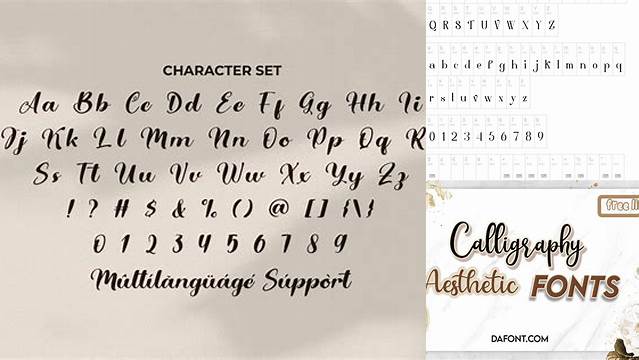
Aesthetic Calligraphy Fonts: Your Dafont Guide
Hey guys! Ever scrolled through Dafont, totally overwhelmed by the sheer number of calligraphy fonts? Yeah, me too! Finding those aesthetic gems can feel like searching for a needle in a haystack. But don't worry, this guide is here to help you navigate the wonderful world of aesthetic calligraphy fonts on Dafont. We'll break down everything from what makes a font "aesthetic" to specific fonts you should check out and how to use them in your projects. So, grab your digital pens (or your actual pens, if you're feeling old-school!), and let's dive in!
1. Understanding Aesthetic in Calligraphy
What exactly makes a calligraphy font aesthetic? It's subjective, of course, but there are some key elements that contribute to that pleasing-to-the-eye quality. Think about balance, flow, and visual harmony. Aesthetic fonts often feature elegant curves, delicate strokes, and a certain je ne sais quoi that sets them apart. Different aesthetics exist too! You might be drawn to a minimalist, modern calligraphy or a more ornate, vintage-inspired style. Understanding your own preferences is the first step. The right aesthetic in calligraphy goes beyond just pretty lines; it's about conveying a feeling, a mood, and a specific message through visual form. Consider the context in which the font will be used. A wedding invitation calls for a different aesthetic than a logo for a tech startup. Exploring various examples and identifying the elements that resonate with you will sharpen your understanding of aesthetic calligraphy and guide your font choices. Ultimately, aesthetic calligraphy aims to elevate your design, adding a touch of sophistication and artistic flair that resonates with your audience.
2. Navigating Dafont for Calligraphy Fonts
Dafont is a treasure trove, but it can be tricky to navigate. The search function is your friend! Use keywords like "calligraphy," "script," "handwritten," and then add descriptors like "elegant," "modern," "vintage," or "decorative" to narrow down your results. Don't just stick to the first page of results; dig deeper! Many hidden gems are lurking further down. Also, pay attention to the preview text. Dafont lets you type in your own text, so use this to see how the font looks with the words you actually plan to use. This is super important! A font might look great with the default "The quick brown fox…" but terrible with your brand name. The search function also allows you to filter by license type (e.g., free for personal use, free for commercial use). Always double-check the license before using a font in a project, especially if it's for commercial purposes. Nobody wants a copyright infringement lawsuit! Using Dafont effectively requires patience and a keen eye. With its vast library of fonts, the key is to refine your search queries and leverage the preview options to discover those aesthetic calligraphy fonts that truly speak to your design vision. Explore, experiment, and don't be afraid to venture beyond the popular choices – that's where the real discoveries await.
3. Popular Aesthetic Calligraphy Styles on Dafont
Let's talk styles! Modern calligraphy is clean, minimalist, and often features subtle variations in line weight. Vintage calligraphy is more ornate, with swashes, flourishes, and a retro feel. Elegant calligraphy focuses on graceful curves and sophisticated letterforms. Boho calligraphy is free-spirited, with a natural, organic look. Understanding these styles will help you refine your searches and find fonts that match your aesthetic. Think about the overall vibe you're going for. Is it sophisticated and timeless? Or playful and whimsical? Your chosen style should complement the message you're trying to convey. Within these broad categories, there's a ton of variation. Some fonts lean towards a more formal, traditional style, while others are more casual and contemporary. The beauty of Dafont is that it offers a diverse range of options to suit every taste. By familiarizing yourself with the popular styles, you'll be better equipped to identify fonts that align with your specific aesthetic and create designs that resonate with your intended audience. Take your time to explore and experiment with different styles until you find the perfect fit for your project.
4. Top Dafont Calligraphy Fonts for Wedding Invitations
Planning a wedding? Aesthetic calligraphy fonts are a must for invitations! Look for elegant and romantic fonts that evoke a sense of celebration and timelessness. Some popular choices include variations of Aphrodite Pro, Beloved, and Isabella Script. These fonts often feature delicate swashes and flourishes that add a touch of sophistication to your wedding stationery. Consider the overall theme of your wedding when selecting a font. A formal, traditional wedding might call for a more classic calligraphy style, while a rustic, bohemian wedding could benefit from a more relaxed and organic font. Pay attention to readability as well. While aesthetics are important, your guests need to be able to easily read the details of your invitation. The font should be legible in both print and digital formats. Don't be afraid to mix and match fonts. You can use a calligraphy font for the names of the bride and groom and a simpler sans-serif font for the body text. This can create a visually appealing contrast while maintaining readability. Ultimately, the best calligraphy font for your wedding invitations is one that reflects your personal style and the overall aesthetic of your special day. Take the time to explore different options and find a font that perfectly captures the romance and elegance of your wedding.
5. Best Calligraphy Fonts for Logos on Dafont
Using calligraphy in a logo can give your brand a unique and sophisticated feel. However, choosing the right font is crucial. You want something that's both aesthetic and legible, and that represents your brand's personality. For a logo, consider fonts like Monsieur La Doulaise or Great Vibes. These are clean, readable, and have a distinct personality. When choosing a calligraphy font for your logo, consider your target audience and the overall message you want to convey. A luxury brand might opt for a more elegant and refined font, while a creative startup might choose a more playful and unconventional option. Readability is paramount. Your logo needs to be easily recognizable, even at small sizes. Avoid fonts with overly intricate or decorative elements that could obscure the brand name. Ensure the font works well in both print and digital formats. Your logo will likely be used on a variety of platforms, so it needs to be versatile and adaptable. Don't be afraid to experiment with different font pairings. You can combine a calligraphy font with a simpler sans-serif font to create a balanced and visually appealing logo. Remember, your logo is the face of your brand. Choosing the right calligraphy font can help you create a memorable and impactful visual identity.
8. Pairing Calligraphy Fonts with Other Fonts
Calligraphy fonts are beautiful, but they often look best when paired with other fonts. A classic pairing is a calligraphy font for headings and a simple sans-serif font for body text. This creates a visual hierarchy and ensures readability. When choosing a pairing font, consider the overall aesthetic you're going for. A modern calligraphy font might pair well with a clean and geometric sans-serif font, while a vintage calligraphy font could complement a more traditional serif font. Avoid pairing two highly decorative fonts together. This can create a cluttered and overwhelming design. Instead, choose one decorative font and one simple font. Pay attention to the weight and spacing of the fonts. The pairing fonts should have a similar weight and spacing to create a harmonious look. Experiment with different font pairings until you find one that you like. There are many online resources that can help you find complementary fonts. Remember, the goal is to create a visually appealing and easy-to-read design. By carefully pairing calligraphy fonts with other fonts, you can elevate your designs and create a professional and polished look.
9. Using Calligraphy Fonts in Adobe Photoshop
Photoshop is a powerful tool for creating stunning designs with aesthetic calligraphy fonts. To use a calligraphy font in Photoshop, simply select the Type tool and choose the font from the font menu. You can adjust the font size, color, and other properties in the Character panel. Experiment with different blending modes to create unique effects. For example, you can use the Overlay blending mode to blend the calligraphy with a background image. Add drop shadows and other layer styles to give the calligraphy depth and dimension. Use the Warp Text tool to distort the calligraphy and create interesting shapes. Photoshop also offers a variety of brushes that can be used to create hand-lettered effects. You can use these brushes to add texture and detail to your calligraphy designs. If you're working with a complex calligraphy font, you may want to convert the text to a shape layer. This will allow you to edit the individual letters and curves. Remember to save your Photoshop file in a high-resolution format to ensure that the calligraphy looks crisp and clear. With Photoshop's powerful tools and features, you can create stunning and aesthetic calligraphy designs that are sure to impress.
10. Utilizing Calligraphy Fonts in Adobe Illustrator
Illustrator is another great tool for working with aesthetic calligraphy fonts. Unlike Photoshop, Illustrator is a vector-based program, which means that your calligraphy designs will be scalable without losing quality. To use a calligraphy font in Illustrator, select the Type tool and choose the font from the Character panel. You can adjust the font size, color, and other properties in the Character panel. Use the Pen tool to create custom swashes and flourishes. This will allow you to add your own personal touch to the calligraphy. Expand the text to create outlines. This will convert the text into editable vector paths. You can then use the Direct Selection tool to edit the individual points and curves. Use the Pathfinder panel to combine and manipulate the shapes. This can be useful for creating complex calligraphy designs. Add gradients and patterns to give the calligraphy depth and dimension. Illustrator's vector-based nature makes it ideal for creating logos and other designs that need to be scalable. With Illustrator's powerful tools and features, you can create stunning and aesthetic calligraphy designs that are perfect for a variety of projects.
11. Calligraphy Fonts for Cricut and Silhouette Machines
If you own a Cricut or Silhouette machine, you can use aesthetic calligraphy fonts to create personalized cards, labels, and other crafts. First, download and install the calligraphy font on your computer. Then, import the font into your Cricut or Silhouette design software. Use the software's text tool to type out your desired text. Adjust the font size and spacing as needed. Weld the letters together to create a continuous shape. This is important for ensuring that the machine cuts the design properly. Cut the design out of vinyl, paper, or other materials. Weed away the excess material. Apply the design to your project using transfer tape. Calligraphy fonts can add a touch of elegance and personalization to your crafts. With your Cricut or Silhouette machine, you can create stunning and unique projects that are sure to impress. Experiment with different fonts and materials to create your own signature style.
12. Creating Digital Calligraphy with a Tablet
For a truly authentic calligraphy experience, consider creating digital calligraphy with a tablet and stylus. This allows you to mimic the feel of traditional calligraphy while taking advantage of the flexibility of digital tools. Invest in a good quality tablet and stylus. Wacom and iPad Pro are popular choices among digital artists. Choose a calligraphy app that suits your needs. Procreate, Adobe Fresco, and Concepts are all great options. Experiment with different brushes and settings. Each app offers a variety of brushes that mimic different calligraphy pens and nibs. Practice your strokes and letterforms. Digital calligraphy requires practice and patience. Use reference materials to improve your technique. Use layers to create complex designs. This allows you to easily edit and adjust different elements of the calligraphy. Add textures and effects to give the calligraphy a unique look. Digital calligraphy offers endless possibilities for creativity and experimentation. With a tablet and stylus, you can create stunning and aesthetic calligraphy designs that are both beautiful and unique.
13. Calligraphy Font Generators: Are They Worth It?
Calligraphy font generators can seem like a quick and easy way to create aesthetic calligraphy, but are they really worth it? The answer is: it depends. Font generators typically offer limited customization options. You may not be able to adjust the letter spacing, kerning, or other important details. The quality of the generated fonts can vary greatly. Some generators produce fonts that look amateurish and lack the finesse of professional fonts. Font generators often use pre-made templates. This can result in designs that look generic and lack originality. However, font generators can be useful for creating quick mockups or prototypes. They can also be a good way to experiment with different styles and ideas. If you're looking for high-quality, professional-looking calligraphy, it's best to use real calligraphy fonts or create your own digital calligraphy. Font generators can be a helpful tool, but they shouldn't be relied upon as a substitute for genuine calligraphy skills and resources. Use them wisely and be aware of their limitations.
14. Monoline vs. Brush Calligraphy Fonts
Monoline calligraphy fonts feature strokes of consistent thickness, creating a clean and modern look. They're ideal for projects where legibility is paramount, such as logos and signage. Brush calligraphy fonts, on the other hand, mimic the look of traditional brush lettering, with varying stroke thicknesses that add depth and character. They're often used for wedding invitations, quotes, and other designs where a more artistic and expressive feel is desired. Consider the overall aesthetic you're going for when choosing between monoline and brush calligraphy fonts. Monoline fonts tend to be more minimalist and understated, while brush fonts are more dynamic and eye-catching. Think about the context in which the font will be used. A monoline font might be a better choice for a website header, while a brush font could be perfect for a social media graphic. Experiment with different fonts and see which ones best suit your project. There are many beautiful monoline and brush calligraphy fonts available on Dafont and other font websites. The key is to find fonts that align with your style and complement your design.
15. Calligraphy Fonts with Swashes and Flourishes
Swashes and flourishes are decorative elements that extend from the letters, adding elegance and sophistication to calligraphy fonts. These embellishments can transform a simple word into a work of art. When using calligraphy fonts with swashes and flourishes, it's important to use them sparingly. Too many swashes and flourishes can make the design look cluttered and overwhelming. Use swashes and flourishes to emphasize key words or phrases. This will draw the viewer's eye to the most important elements of the design. Consider the overall aesthetic of the design. Swashes and flourishes can range from delicate and subtle to bold and dramatic. Choose embellishments that complement the overall style. Experiment with different swash and flourish options. Many calligraphy fonts offer a variety of swashes and flourishes to choose from. Use them creatively to add your own personal touch to the design. Remember, less is often more. A few well-placed swashes and flourishes can be more effective than a design that is overloaded with ornamentation. With careful planning and execution, you can use calligraphy fonts with swashes and flourishes to create stunning and aesthetic designs.
16. Calligraphy Fonts for T-Shirt Designs
Calligraphy fonts can add a unique and stylish touch to t-shirt designs. When choosing a calligraphy font for a t-shirt, consider the overall message and style of the design. A bold and edgy font might be suitable for a rock band t-shirt, while a more delicate and elegant font could be perfect for a bridal party t-shirt. Ensure the font is legible, even when printed on fabric. Avoid fonts with overly thin or intricate details that may not reproduce well. Consider the size of the design. Calligraphy fonts can look great at large sizes, but they may become difficult to read at smaller sizes. Test the design on a sample t-shirt before printing a large batch. This will allow you to identify any issues with the font or design. Use contrasting colors to make the calligraphy stand out. A dark font on a light background or a light font on a dark background will create a visually appealing contrast. Don't be afraid to experiment with different font combinations. You can pair a calligraphy font with a simpler sans-serif font to create a balanced and visually interesting design. With the right calligraphy font, you can create t-shirt designs that are both stylish and memorable.
17. Calligraphy Fonts for Social Media Graphics
Aesthetic calligraphy fonts are a fantastic way to elevate your social media graphics, adding a touch of personality and sophistication to your posts. Choose fonts that align with your brand's aesthetic and target audience. A playful brand might opt for whimsical calligraphy, while a more serious brand could prefer elegant and refined styles. Ensure the font is legible on various screen sizes. Social media is consumed on everything from phones to desktops, so readability is crucial. Use contrasting colors to make the calligraphy stand out against your background images or videos. A well-chosen color palette can enhance the overall visual appeal. Animate the calligraphy to capture attention and create a dynamic effect. Simple animations can add a touch of magic to your posts. Use calligraphy fonts sparingly to highlight key messages or headlines. Overusing calligraphy can clutter the design and diminish its impact. Experiment with different font pairings to create visual interest and balance. Combine calligraphy with sans-serif or serif fonts for a cohesive look. With the right calligraphy fonts and design techniques, you can create social media graphics that are both engaging and aesthetically pleasing. Remember, consistency is key – use a consistent style to reinforce your brand identity.
18. Calligraphy Fonts for Book Covers
Calligraphy fonts can create a captivating and memorable book cover, drawing readers in with their artistic flair. Select a font that reflects the genre and tone of the book. A romantic novel might call for a flowing script, while a historical fiction could benefit from a more traditional style. Ensure the font is legible from a distance. Book covers need to grab attention on shelves and in online stores, so readability is essential. Use the calligraphy font for the title or author's name, and pair it with a simpler font for the subtitle or other text elements. This creates a visual hierarchy. Consider the overall design of the cover. The calligraphy font should complement the imagery and color palette. Experiment with different font sizes and placements to find the most effective composition. Think about the target audience for the book. The font should appeal to the readers you're trying to reach. Research best-selling book covers in your genre for inspiration, but be sure to create a unique design that stands out. A well-chosen calligraphy font can transform a book cover from ordinary to extraordinary, making it more appealing and memorable to potential readers.
19. Calligraphy Fonts and Branding: Dos and Don'ts
Using calligraphy fonts in branding can add a touch of elegance, personality, and memorability, but it's essential to approach it strategically. Do choose a font that aligns with your brand's personality and values. A luxury brand might opt for a sophisticated script, while a creative brand could choose a more playful style. Don't use overly intricate or illegible fonts. Your brand name needs to be easily recognizable. Do use calligraphy sparingly, focusing on key elements like your logo or tagline. Overuse can make your brand look cluttered. Don't pair calligraphy fonts with other overly decorative fonts. This can create a visually overwhelming effect. Do ensure the font is scalable and works well in both print and digital formats. Your brand identity needs to be consistent across all platforms. Don't forget to check the font's license before using it for commercial purposes. You need to ensure you have the right to use the font in your branding. Do test the font with your target audience to ensure it resonates with them. Their feedback is invaluable. By following these dos and don'ts, you can effectively incorporate calligraphy fonts into your branding and create a memorable and impactful visual identity.
20. Calligraphy Font Trends in 2024
Staying up-to-date with the latest calligraphy font trends can help you create designs that are fresh, modern, and appealing. In 2024, we're seeing a rise in bold and impactful calligraphy. Think thick strokes, strong contrast, and fonts that demand attention. Modern calligraphy with a minimalist twist is also gaining popularity. Clean lines, simple shapes, and a focus on legibility are key. Hand-drawn calligraphy fonts are trending as well, adding a personal and authentic touch to designs. These fonts often feature imperfections and irregularities that make them feel unique. Vintage-inspired calligraphy fonts continue to be popular, evoking a sense of nostalgia and timelessness. Look for fonts with ornate details and classic letterforms. Calligraphy fonts with a playful and whimsical vibe are also on the rise, perfect for brands that want to project a fun and approachable image. Experiment with different trends to see which ones best suit your style and brand. Remember, the goal is to create designs that are both visually appealing and effective at communicating your message. Don't be afraid to break the rules and create your own unique style. The world of calligraphy is constantly evolving, so stay curious and keep exploring!
21. Advanced Techniques: Faux Calligraphy
Faux calligraphy is a technique that allows you to create the look of calligraphy without actually using a calligraphy pen. It's a great way to add a touch of elegance to your designs, even if you don't have experience with traditional calligraphy. Start by writing out your word or phrase in a regular font. Then, identify the downstrokes (the strokes that move downwards). Thicken these downstrokes using a pen or marker. Add serifs and other embellishments to enhance the calligraphy effect. Practice regularly to improve your technique. There are many online tutorials and resources that can help you learn faux calligraphy. Experiment with different pens and markers to find the ones you like best. Faux calligraphy can be used for a variety of projects, from greeting cards to social media graphics. It's a versatile technique that can add a touch of sophistication to any design. With practice, you can create beautiful and aesthetic calligraphy using just a regular pen and some simple techniques.
22. Resources for Learning Calligraphy Online
Learning calligraphy can be a rewarding and creative endeavor, and there are many fantastic resources available online to help you get started. Skillshare offers a wide range of calligraphy courses for all skill levels. CreativeLive also has a selection of calligraphy classes taught by renowned instructors. YouTube is a treasure trove of free calligraphy tutorials. Search for channels like The Postman's Knock and Seanwes to learn from experienced calligraphers. Blogs like Calligraphy.org and IAMPETH provide valuable information and inspiration. Instagram is a great place to find calligraphy artists and communities. Follow hashtags like #calligraphy, #handlettering, and #moderncalligraphy to discover new talent and techniques. Online forums like Reddit's r/calligraphy are a great place to ask questions and connect with other calligraphy enthusiasts. Take advantage of these resources to learn the fundamentals of calligraphy, practice your skills, and connect with a community of fellow artists. With dedication and perseverance, you can master the art of calligraphy and create beautiful and aesthetic designs.
23. Calligraphy and Hand Lettering: What's the Difference?
While often used interchangeably, calligraphy and hand lettering are distinct art forms. Calligraphy is the art of beautiful writing, where each letter is created in a single stroke following specific rules and guidelines. Think of it as a dance where the pen never leaves the paper unnecessarily. Hand lettering, on the other hand, is the art of drawing letters. Each letter is carefully constructed, often with multiple strokes and embellishments. It's more like illustration than writing. Calligraphy emphasizes consistency and rhythm, while hand lettering allows for more freedom and creativity. Calligraphy typically uses specialized tools like calligraphy pens and brushes, while hand lettering can be done with a variety of tools, including pencils, markers, and even digital brushes. Understanding the difference between calligraphy and hand lettering can help you choose the right approach for your design projects. If you want to create elegant and traditional-looking text, calligraphy is the way to go. If you want to create unique and custom lettering, hand lettering is the better choice. Both art forms offer endless possibilities for creativity and expression.
24. Choosing the Right Calligraphy Pen
Selecting the right calligraphy pen is crucial for achieving beautiful and consistent results. There are several types of calligraphy pens to choose from, each with its own unique characteristics. Dip pens are traditional calligraphy pens that use interchangeable nibs. They offer a wide range of line widths and styles, but require dipping the nib into ink frequently. Fountain pens are more convenient than dip pens, as they have a built-in ink reservoir. They're a good option for beginners, but offer less flexibility in terms of nib selection. Brush pens feature a flexible brush tip that allows you to create varying line widths with pressure. They're great for creating modern calligraphy and brush lettering. Parallel pens have two parallel plates that create consistent line widths. They're ideal for creating bold and graphic calligraphy. Consider your skill level and the type of calligraphy you want to create when choosing a pen. Experiment with different pens to find the ones that you like best. Also, invest in high-quality ink. The ink you use can affect the flow and consistency of the pen. With the right pen and ink, you can create stunning and aesthetic calligraphy that will impress.
25. Mastering Basic Calligraphy Strokes
Before you can create beautiful calligraphy, you need to master the basic strokes. These strokes form the foundation of all calligraphy letters. The upstroke is a thin stroke that moves upwards. Apply light pressure to the pen to create a thin line. The downstroke is a thick stroke that moves downwards. Apply more pressure to the pen to create a thick line. The oval is a curved stroke that resembles an oval shape. Practice creating consistent and smooth ovals. The underturn is a curved stroke that turns downwards. The overturn is a curved stroke that turns upwards. Practice these strokes repeatedly until you can execute them smoothly and consistently. Pay attention to the angle and pressure of the pen. Consistent angle and pressure will result in more uniform strokes. Use practice sheets to guide your strokes. There are many free practice sheets available online. Mastering these basic strokes is essential for developing good calligraphy habits. With practice and patience, you'll be able to create beautiful and aesthetic calligraphy that is both consistent and elegant.
26. Calligraphy for Special Occasions: Holidays
Adding a touch of calligraphy to your holiday celebrations can make them even more special. Create personalized greeting cards with handwritten messages. Address envelopes with elegant calligraphy. Design custom gift tags with festive lettering. Make decorative banners and signs with holiday-themed phrases. Use calligraphy to create unique place cards for your holiday dinner table. Write out your favorite holiday recipes in a beautiful calligraphy font. Decorate your home with calligraphy art prints featuring inspirational quotes or holiday greetings. Calligraphy can add a personal and heartfelt touch to your holiday celebrations. It's a great way to show your loved ones that you care. Experiment with different fonts, colors, and embellishments to create unique and festive designs. From Christmas to Thanksgiving to Halloween, calligraphy can enhance the spirit of any holiday. Make this year's celebrations even more memorable with the art of beautiful writing. The aesthetic appeal of calligraphy is sure to impress your guests.
27. Maintaining Your Calligraphy Pens
Proper maintenance is essential for keeping your calligraphy pens in good working order and extending their lifespan. Clean your pens regularly after each use. Use water or a pen cleaning solution to remove any ink residue. Disassemble the pen and clean all the individual parts. Store your pens in a safe and dry place. Protect them from dust and moisture. Replace worn-out nibs and parts. Nibs can become damaged or worn over time, affecting the pen's performance. Use the correct ink for your pens. Some inks can clog or damage certain types of pens. Avoid using excessive pressure when writing. This can damage the nib and cause it to wear out more quickly. Store your pens horizontally or with the nib pointing upwards. This will prevent ink from drying out in the nib. By following these simple maintenance tips, you can keep your calligraphy pens in good condition and enjoy them for years to come. Proper care will ensure that your pens continue to produce beautiful and aesthetic calligraphy.
28. Exploring Different Calligraphy Styles: Copperplate
Copperplate is a classic and elegant calligraphy style characterized by its graceful curves, fine lines, and consistent slant. It's a formal and sophisticated style often used for wedding invitations, certificates, and other important documents. The copperplate style is written with a pointed nib pen, which allows for variations in line width. Downstrokes are thick, while upstrokes are thin. The letters are typically slanted at a consistent angle, usually around 55 degrees. Practice is essential for mastering the copperplate style. It requires precision and control. There are many online resources and tutorials that can help you learn copperplate calligraphy. Pay attention to the letterforms and the spacing between letters. Consistent spacing is crucial for creating a harmonious and balanced design. Use high-quality ink and paper. The ink should flow smoothly, and the paper should be smooth and resistant to feathering. Copperplate calligraphy is a beautiful and timeless art form that can add a touch of elegance to any project. With dedication and practice, you can master this classic style and create stunning and aesthetic calligraphy.
29. Calligraphy for Beginners: Essential Tools
Starting your calligraphy journey can be exciting! Having the right tools makes the process smoother and more enjoyable. A good calligraphy pen (either a dip pen with nibs or a brush pen) is essential. Choose one that feels comfortable in your hand. Ink is another key ingredient. India ink is a popular choice for its rich color and permanence. Paper that's smooth and bleed-resistant is crucial. Avoid paper that's too textured, as it can cause the ink to feather. A ruler will help you draw guidelines for consistent letter height and spacing. A pencil is useful for sketching out your designs before inking. An eraser is handy for correcting mistakes. A practice pad is a great way to practice your strokes and letterforms without wasting expensive paper. Consider investing in a calligraphy starter kit that includes all the essential tools. With these tools in hand, you'll be well-equipped to begin your calligraphy adventure. Remember to practice regularly and be patient with yourself. Calligraphy takes time and effort to master, but it's a rewarding art form that can bring joy and creativity to your life. The aesthetic results are well worth the effort!
30. Perfecting Letter Spacing in Calligraphy
Achieving even and harmonious letter spacing is crucial for creating visually appealing and legible calligraphy. Inconsistent spacing can make the text look cluttered and unprofessional. Pay attention to the space between each letter. The goal is to create a consistent amount of white space between each character. Consider the shape of the letters. Some letter combinations may require more or less space than others. Use your eye to judge the spacing. Step back and look at the overall composition to see if the spacing looks balanced. Practice adjusting the spacing until you achieve a visually pleasing result. Use guidelines to help you maintain consistent letter height and spacing. If you're using a digital calligraphy tool, use the kerning feature to adjust the spacing between individual letter pairs. Experiment with different spacing techniques to find what works best for you. Remember, letter spacing is an art as well as a science. It requires a keen eye and a lot of practice. With patience and dedication, you can master the art of letter spacing and create beautiful and aesthetic calligraphy that is both visually appealing and easy to read.